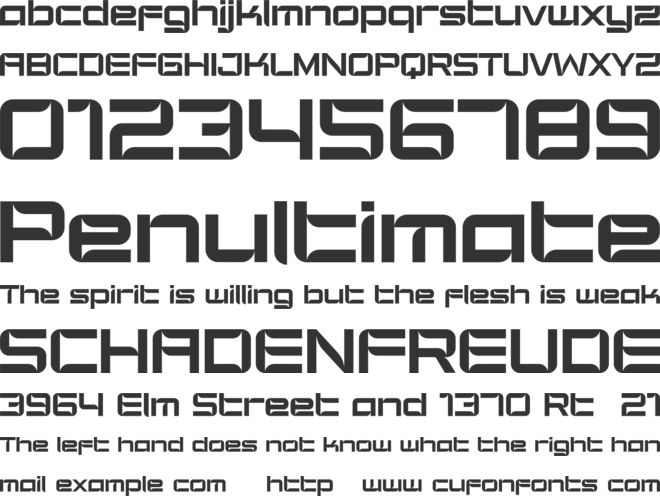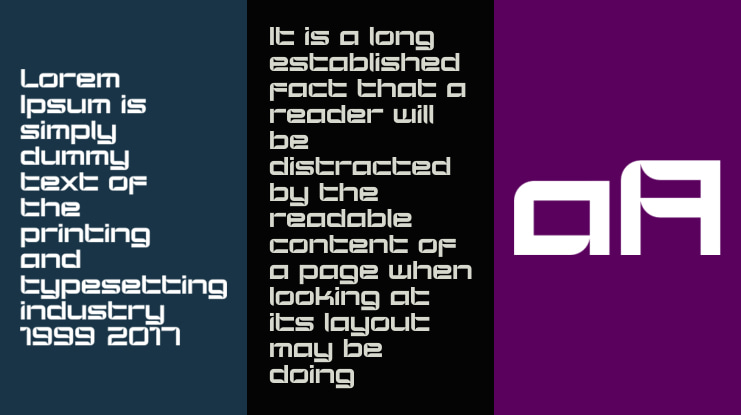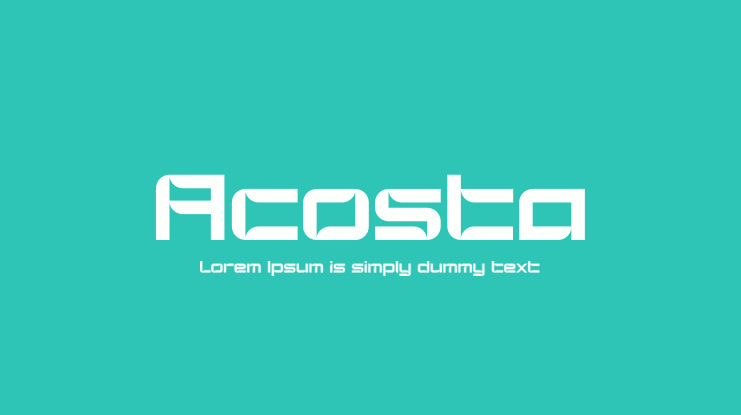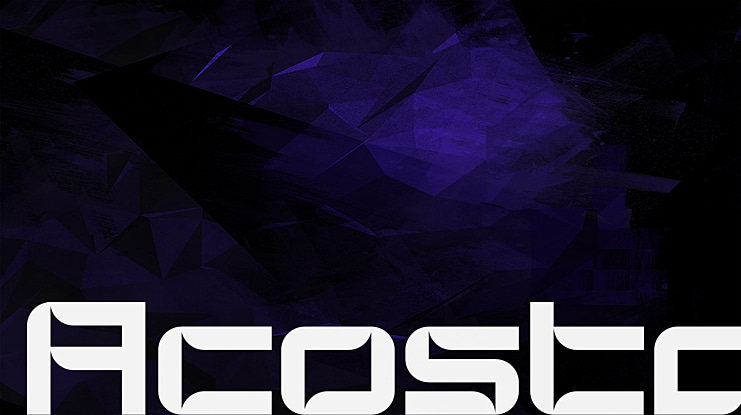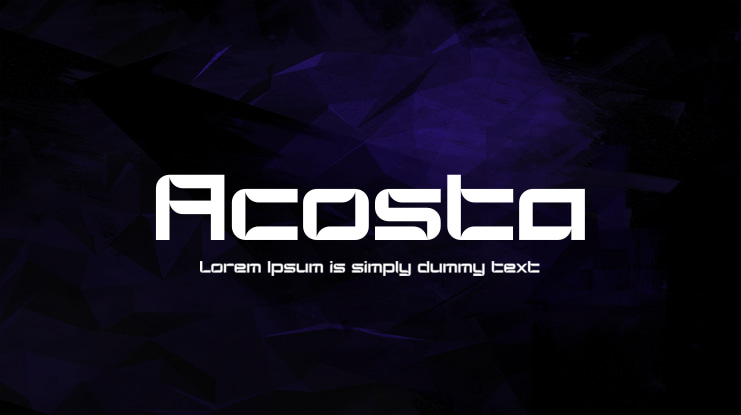
Acosta Font
This is a simple modern san serif font. Made from font designer named Visual Avortic. Simplicity and modernity are the basis for making this font. Perfect for branding, logos, invitations, mastheads, and more.